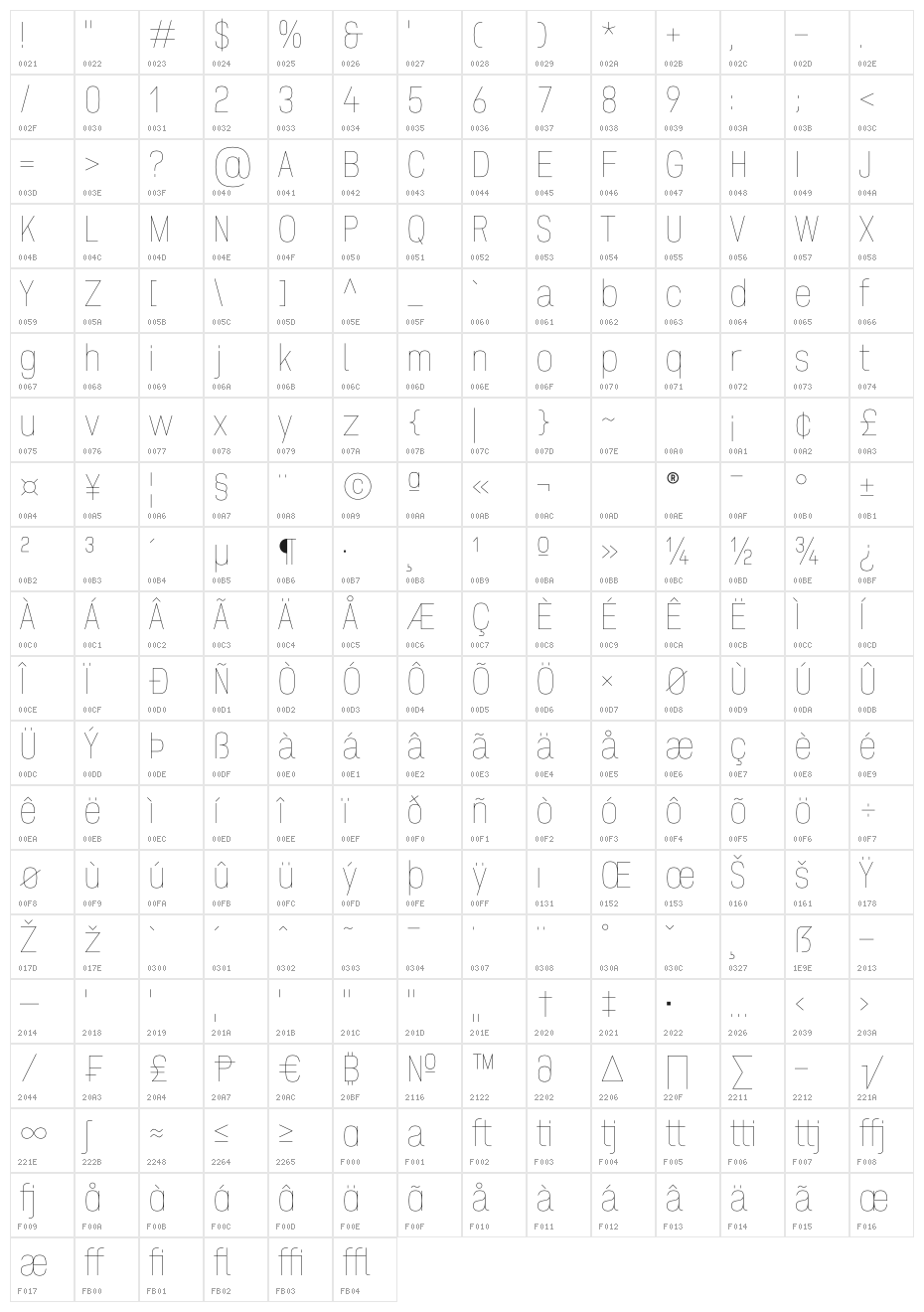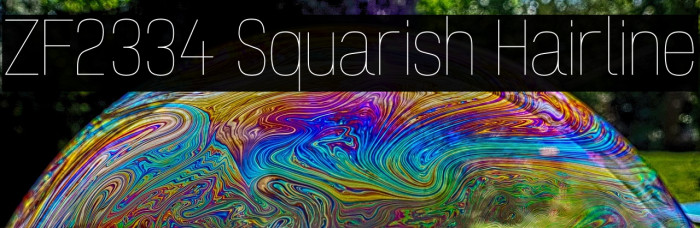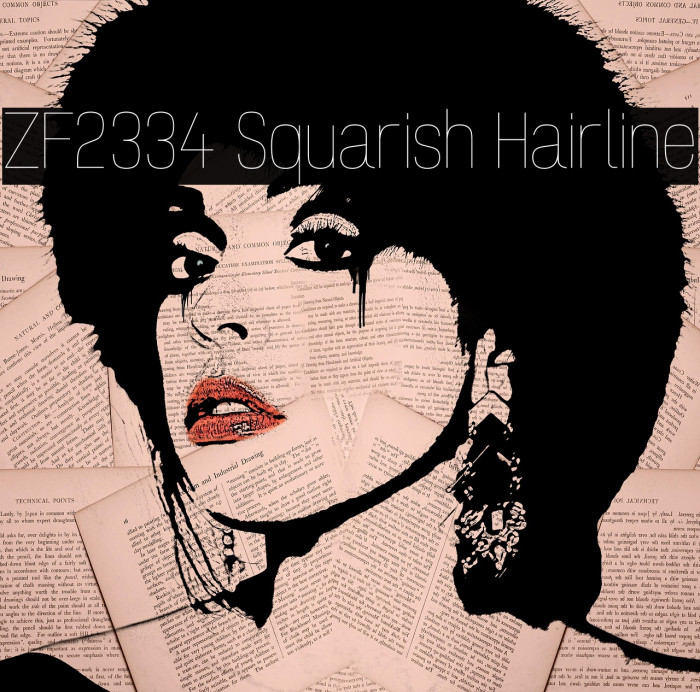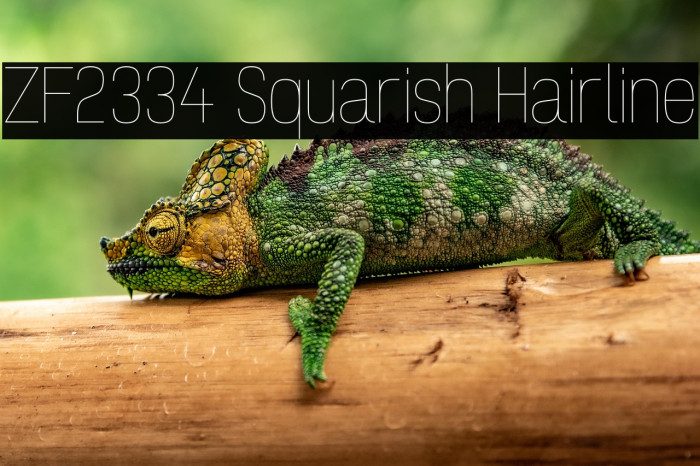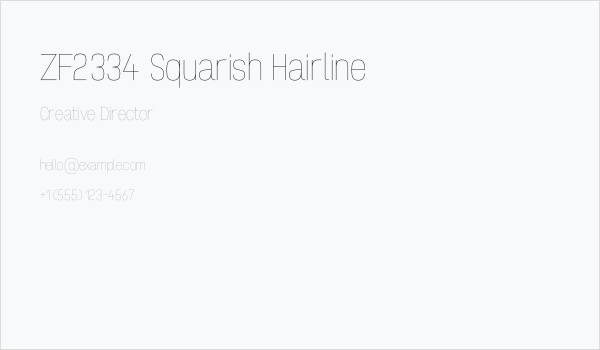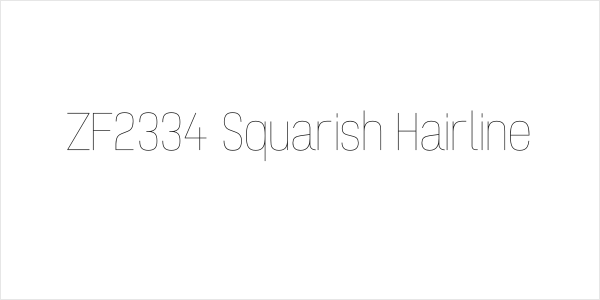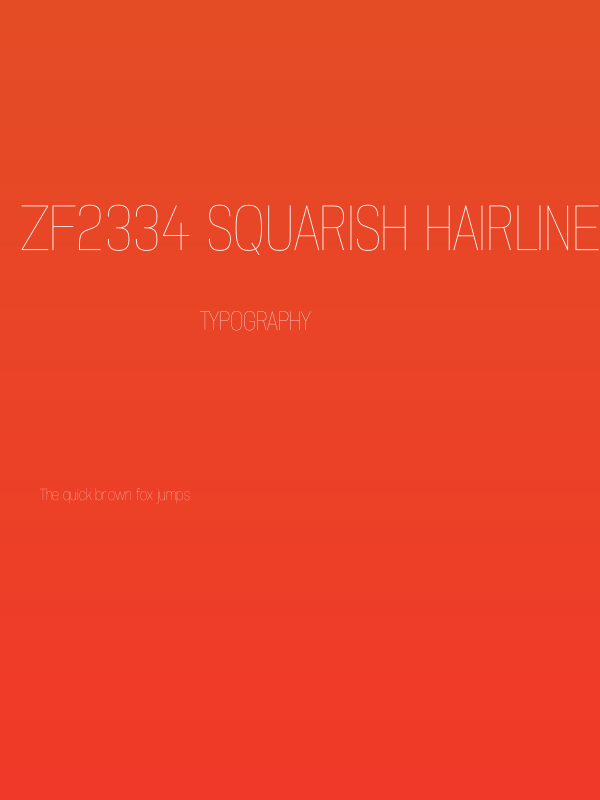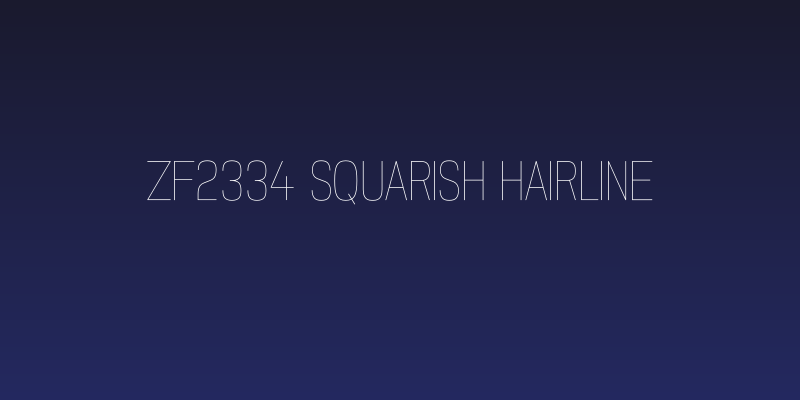
ZF2334 Squarish Hairline Font
ZF2334 Squarish Hairline Description
Updated : Multilingual support has been added; The Italic style has been removed as it looks too weird; 2 styles have been added : Light and Hairline. ZF2334 Squarish is a condensed monoline sans-serif font. It is similar to Helvetica Condensed. Lice
| Use Case | Headlines, Logos, Digital interfaces |
| Proposed Projects | Ideal for tech branding, minimalist posters, modern web design, and digital interfaces. |